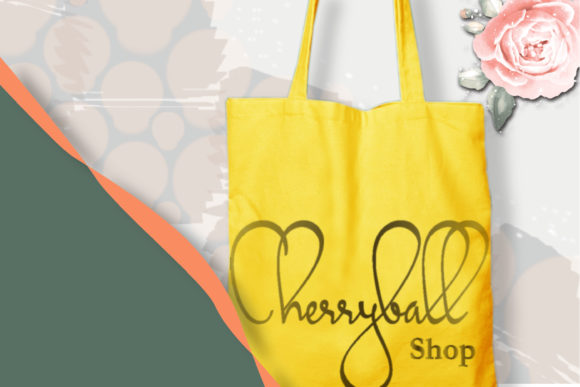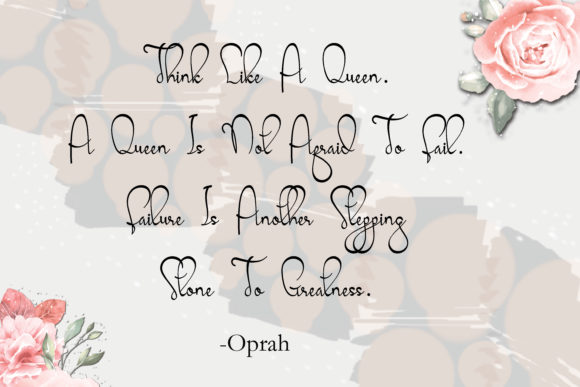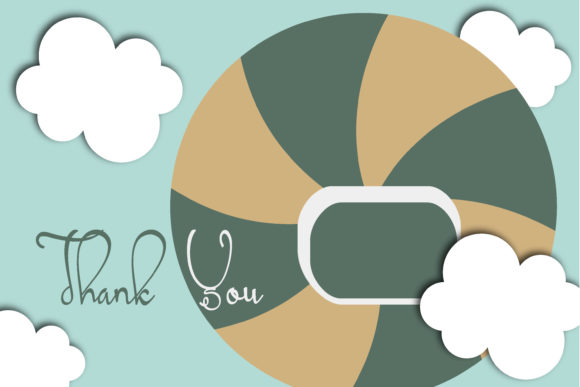
The Cherryball Font: A Cool and Fun Script Font to Elevate Your Designs
I’ll never forget the time I was working on a project for a client who wanted a font that was both playful and elegant. I scoured the internet for hours, but nothing seemed quite right. That was until I stumbled upon the Cherryball font. Its unique vibe and charming feel instantly caught my attention, and I knew I had found the perfect fit. In this article, I’ll share my experience with Cherryball, its features, and how to make the most of it in your designs.
My Honest Review of Cherryball Font
So, what do I love about Cherryball? Here are a few things that make it stand out:
- ✨ Unique and playful vibe: Cherryball has a distinct personality that sets it apart from other script fonts.
- ✅ Elegant and refined: Despite its playful nature, Cherryball still manages to convey a sense of sophistication and elegance.
- 💫 Highly versatile: This font can be used for a wide range of projects, from branding and advertising to packaging and more.
Of course, no font is perfect, and Cherryball has a few small quirks:
- 🤔 Limited use of uppercase letters: While Cherryball has a beautiful set of lowercase letters, its uppercase letters are somewhat limited.
- ⚠️ Some letters may require manual kerning: As with any font, you may need to adjust the kerning of certain letters to get the best results.
The Backstory of Cherryball Font
According to its creators, Cherryball was inspired by the classic script fonts of the past, with a modern twist. The goal was to create a font that was both elegant and playful, with a unique personality that would stand out in any design.
| Font Name | Cherryball Font |
| Author | emanesdsign |
| What is Cherryball font best used for? | Cherryball is a versatile font that can be used for a wide range of projects, from branding and advertising to packaging and more. |